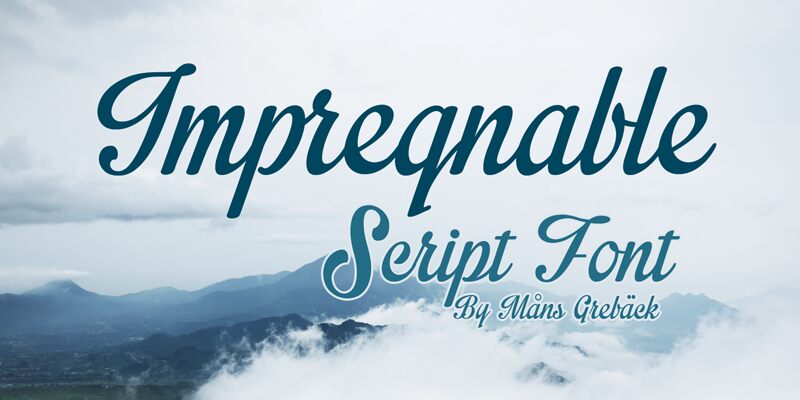
Impregnable by Måns Grebäck is a free high-contrast calligraphic script with sweeping capitals and a strong rightward flow. Its broad loops stretch across neighboring letters and create an ornate, almost continuous silhouette. Fine hairlines meet dark, rounded downstrokes, and many letters finish in long curling strokes.
Formal penmanship gives the font a natural place in wedding invitations and certificates. Its dramatic sweep also suits perfume packaging and fashion branding with a romantic, ceremonial character. In editorial design, it can turn a magazine feature opener into part of the page's ornament.